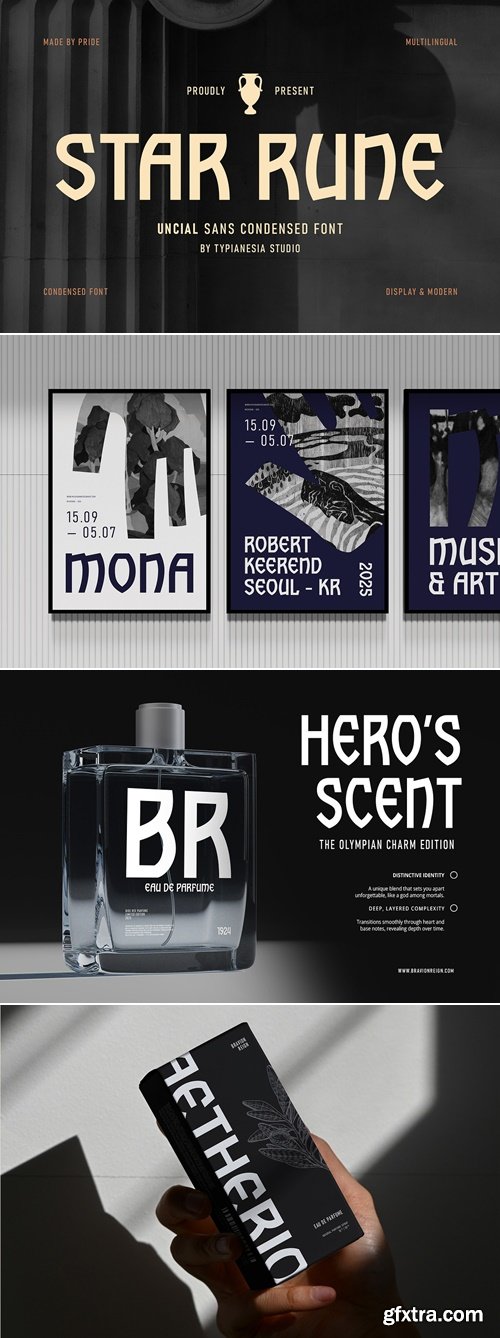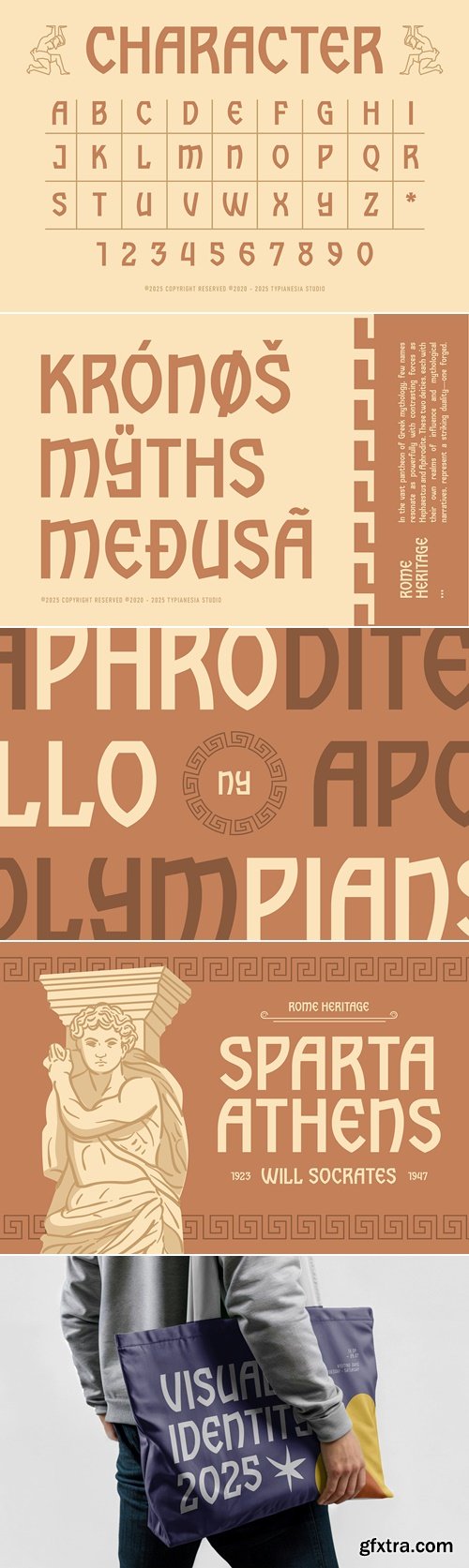
CreativeMarket - Star Rune - Uncial Sans
- Star Rune - Uncial Sans Condensed Font – Modern Display Typeface with Ancient & Mythological Charm.
- Star Rune is a distinctive uncial sans condensed font that seamlessly blends ancient inspirations with a modern display aesthetic, this bold and condensed typeface draws its unique character from traditional uncial script while maintaining the clean readability of a sans serif. Star Rune is perfect for projects seeking a blend of historical gravitas and contemporary flair, such as branding, game titles, museum exhibitions, fantasy-themed designs, logo designs, posters, advertising campaigns, merchandise, and powerful product packaging. With its robust character set and multilingual support, Star Rune offers versatility for a variety of creative applications, allowing you to evoke a sense of strength, history, and modernity in your designs.